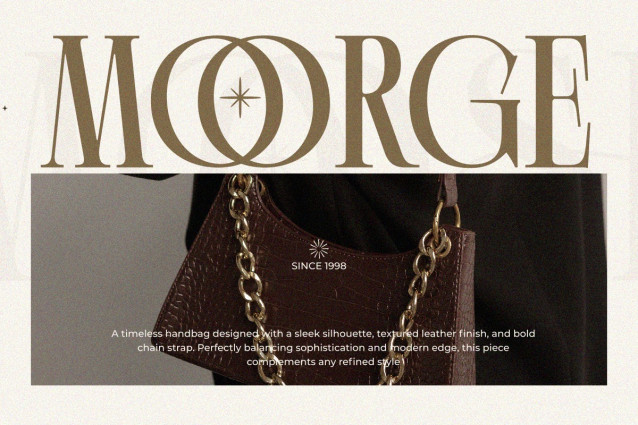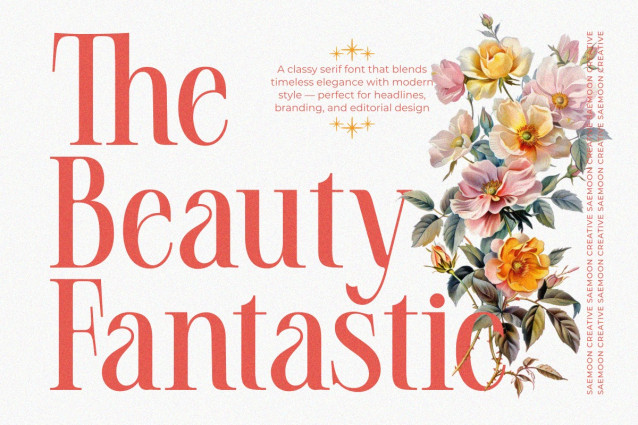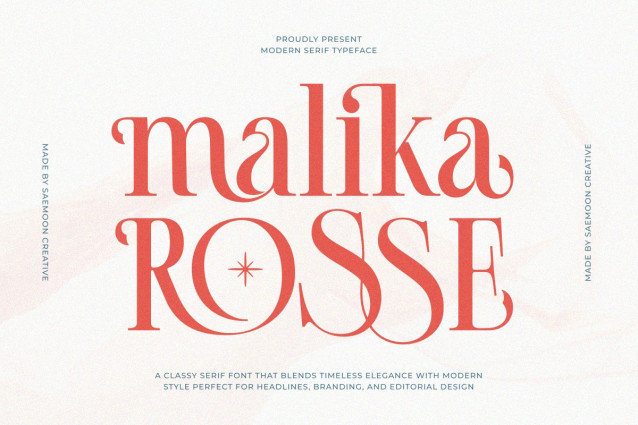
Malika Rosse Font
Malika Rosse Font is a modern serif typeface that blends timeless classic touches with contemporary elegance. Designed with precision details, this font delivers a sense of sophistication, luxury, and character, making it a perfect choice for a wide range of design needs.
It is ideal for headlines, branding, editorial layouts, posters, packaging, and logos that require an exclusive and refined look.